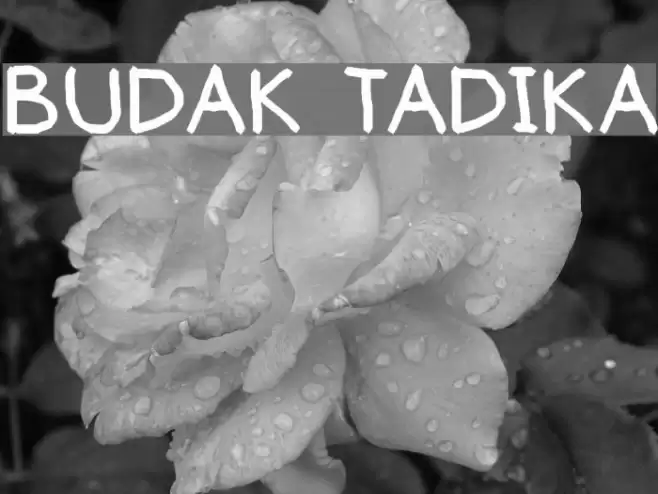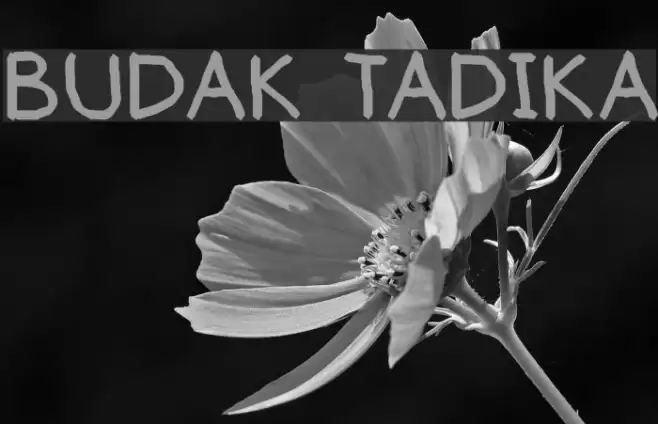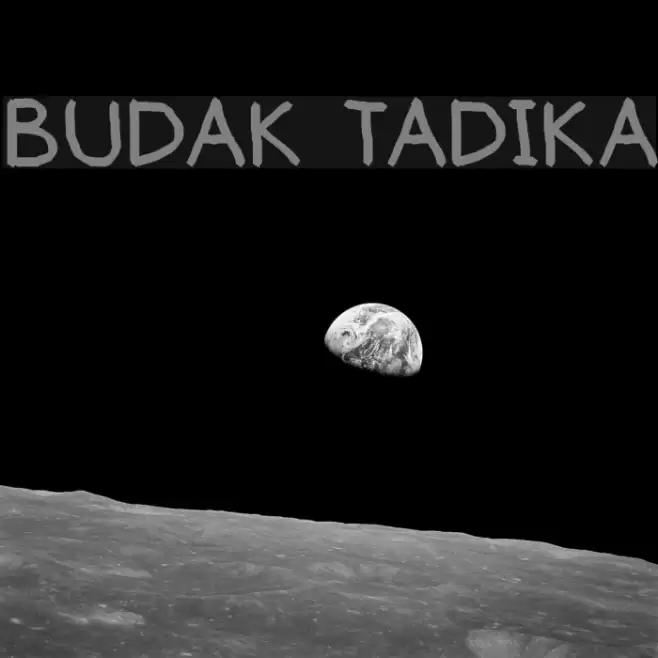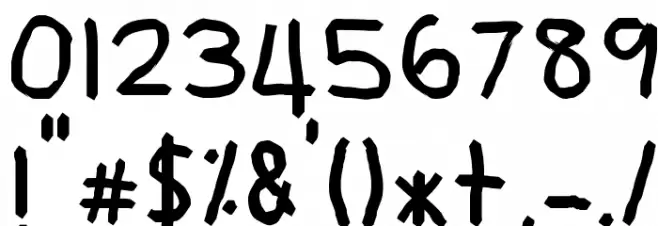
BUDAK TADIKA Font
BUDAK TADIKA Description
This font features a playful and informal style, reminiscent of handwriting with a bold and slightly irregular appearance. The characters are crafted with a thick stroke, giving them a strong presence on the page. The uppercase and lowercase letters maintain a consistent style, with rounded edges and a casual flair. Numbers and special characters are designed to match the overall whimsical aesthetic, making them suitable for creative and fun projects. The font's unique charm lies in its ability to convey a sense of friendliness and approachability, making it ideal for designs aimed at children or informal settings.
A playful, handwritten-style font with bold, rounded characters from Uncategorized fonts.
- Proposed Projects: Ideal for children's books, playful branding, educational materials, and informal invitations.
- Overall Style: Playful
- Use Case: Headlines, Logos, Informal Text